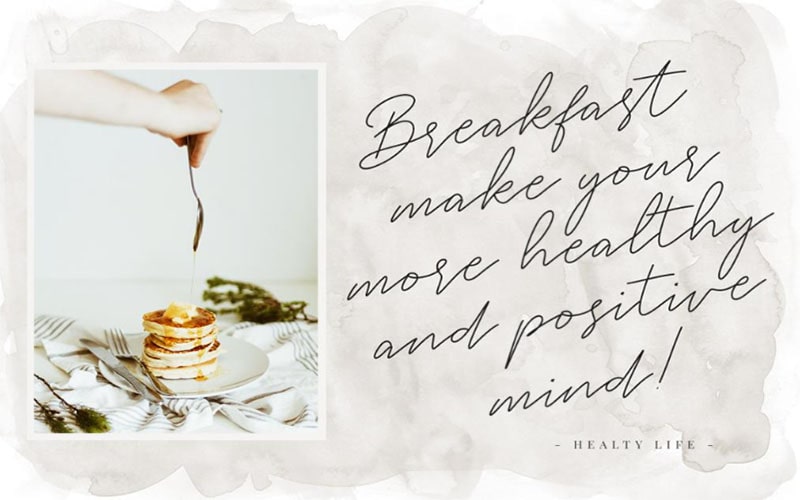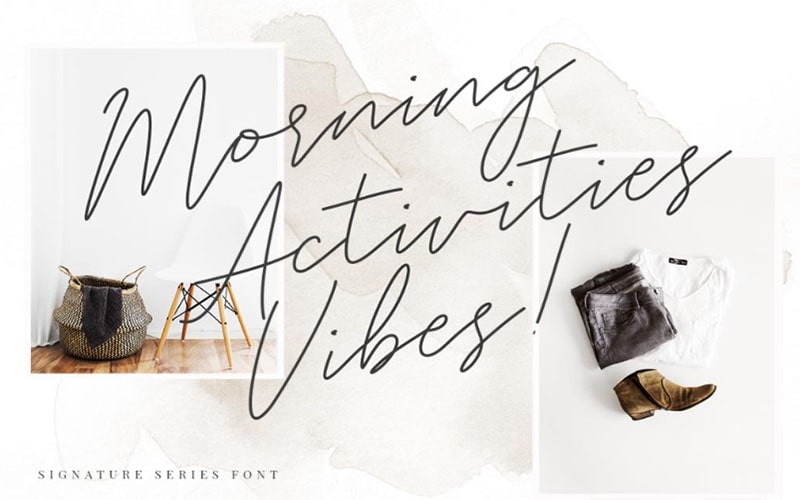
White Angelica Font is a beautifully crafted typeface known for its elegant and sophisticated design. Ideal for projects that require a touch of class and refinement, this font brings a sense of beauty and grace to any text.
It is characterized by its smooth, flowing letterforms and delicate details. The font features a modern calligraphic style with elegant curves and a sophisticated look.
This comes in a single style, emphasizing its delicate and refined nature. Some versions may offer additional weights or stylistic alternates for more design flexibility.
It includes a comprehensive character set such as Uppercase letters, Lowercase letters, Numerals, Punctuation marks, Special characters, and symbols. Let’s have a look at its texture.
White Angelica Font
| Font Name: | White Angelica Font |
| Style: | Script, Calligraphic, Typeface |
| Font Designer: | Creatype Studio |
It is ideal for a variety of design applications, including Wedding invitations and event materials, Elegant branding and logos, Editorial and magazine layouts, Book covers and titles, Website headers and digital content, etc.